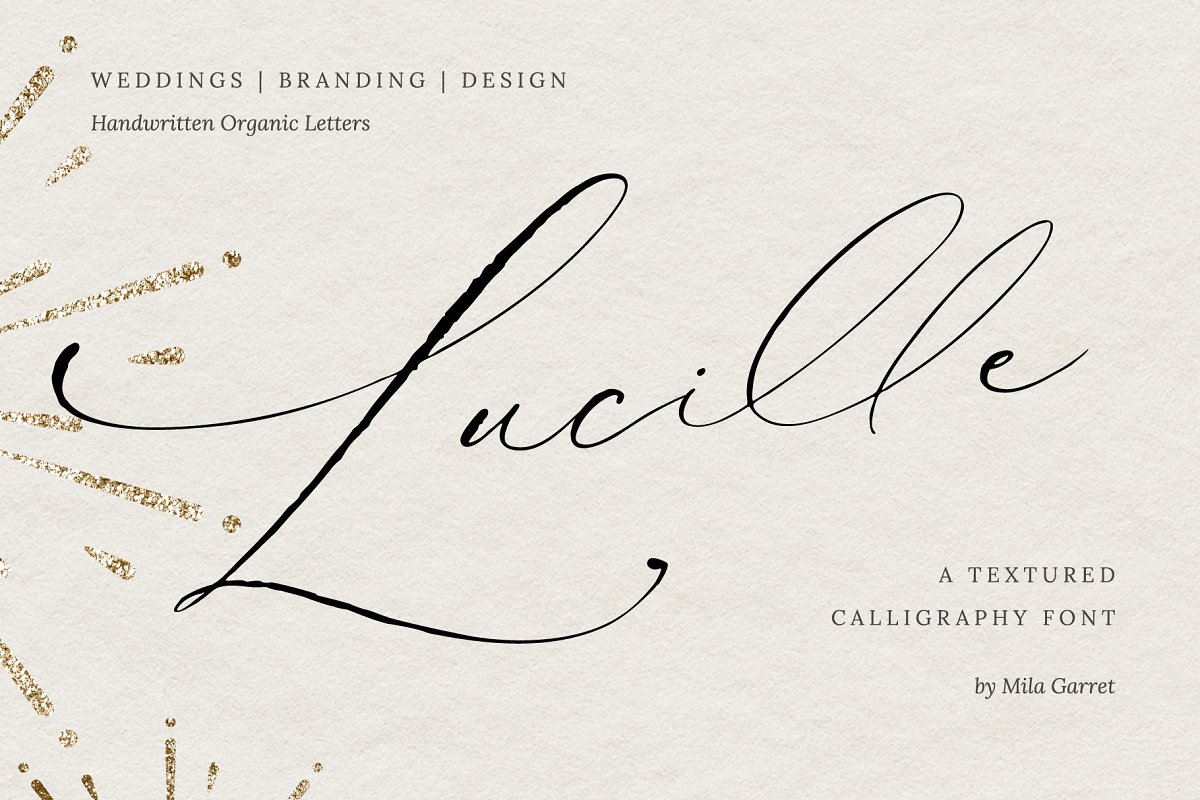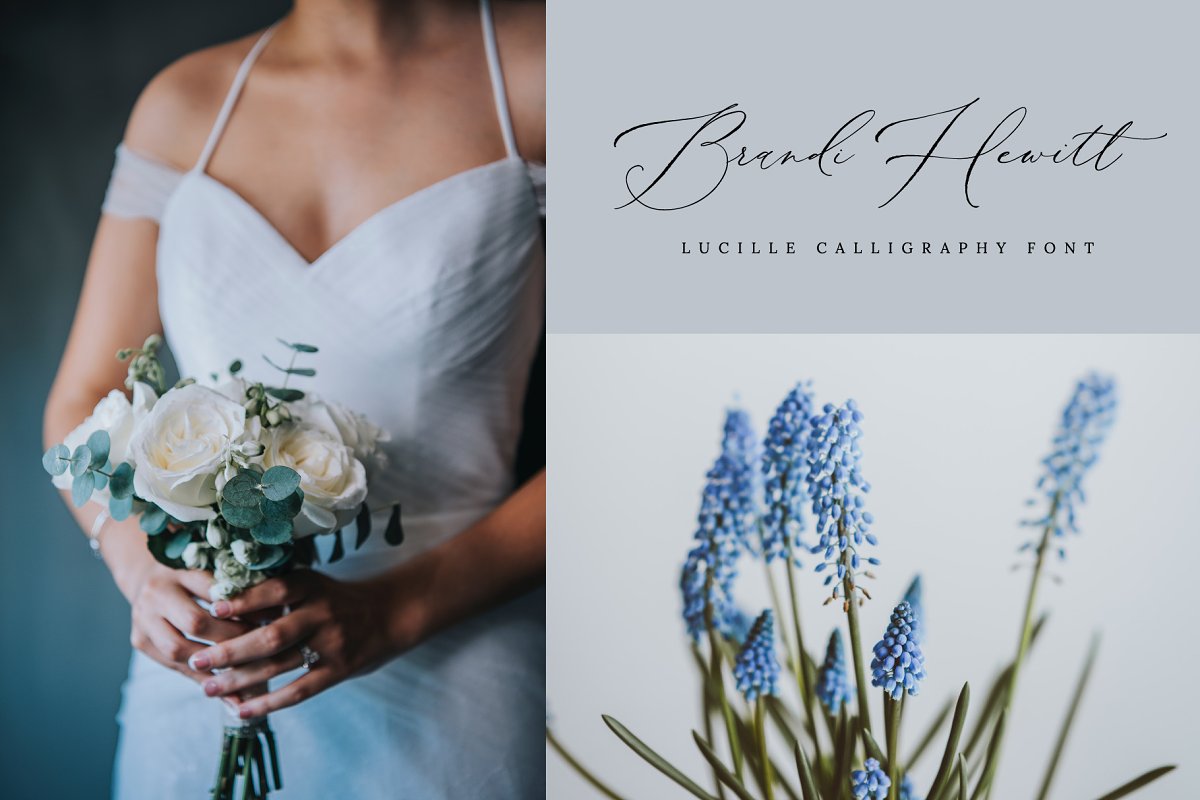
About the Lucille Wedding Calligraphy Font
Introducing Lucille, a modern calligraphy font, handwritten with an inky texture, featuring swash alternates and ligatures, Lucille Script is suited for feminine logos, wedding stationery, small business branding, and more!Thanks so much for checking out my shop, and please get in touch if you have any questions! milagarret@gmail, com-MilaLucille Font FeaturesFull Set of standard alphabet and punctuationExtra set of beginning swashed lowercaseExtra set of ending swashed lowercaseExtra set of beginning swashed uppercaseHandwritten ligaturesPUA Encoded – no special software needed to access extra charactersMultilingual Characters (ÁÂÄÀÅÃÆÇÐÉÊËÈÍÎÏÌÑÓÔÖÒØÕŒÞÚÛÜÙẂŴẄẀÝŶŸỲáâäàåãæçðéêëèíîïìñóôöòøõœþßúûüùẃŵẅẁýŷÿỳŠŽšž€£¥ªº)Inky Rough Texture